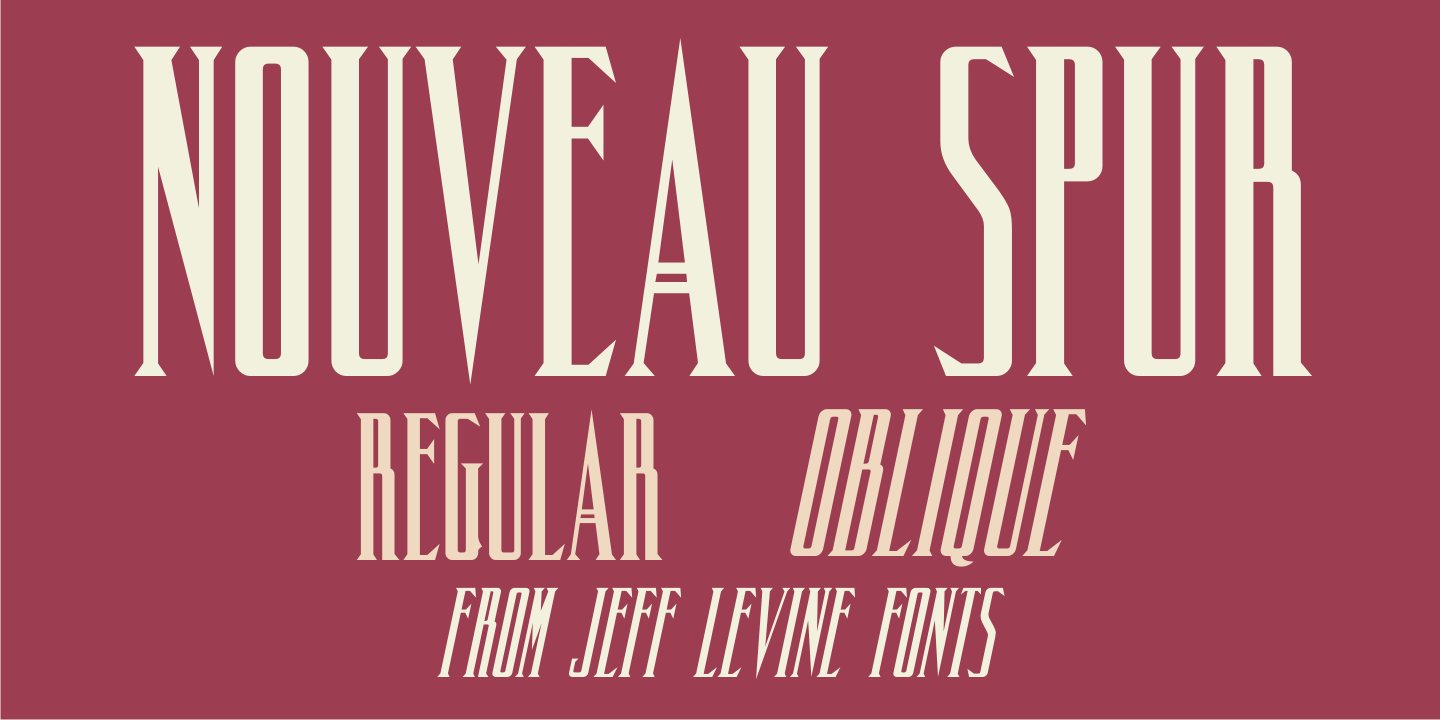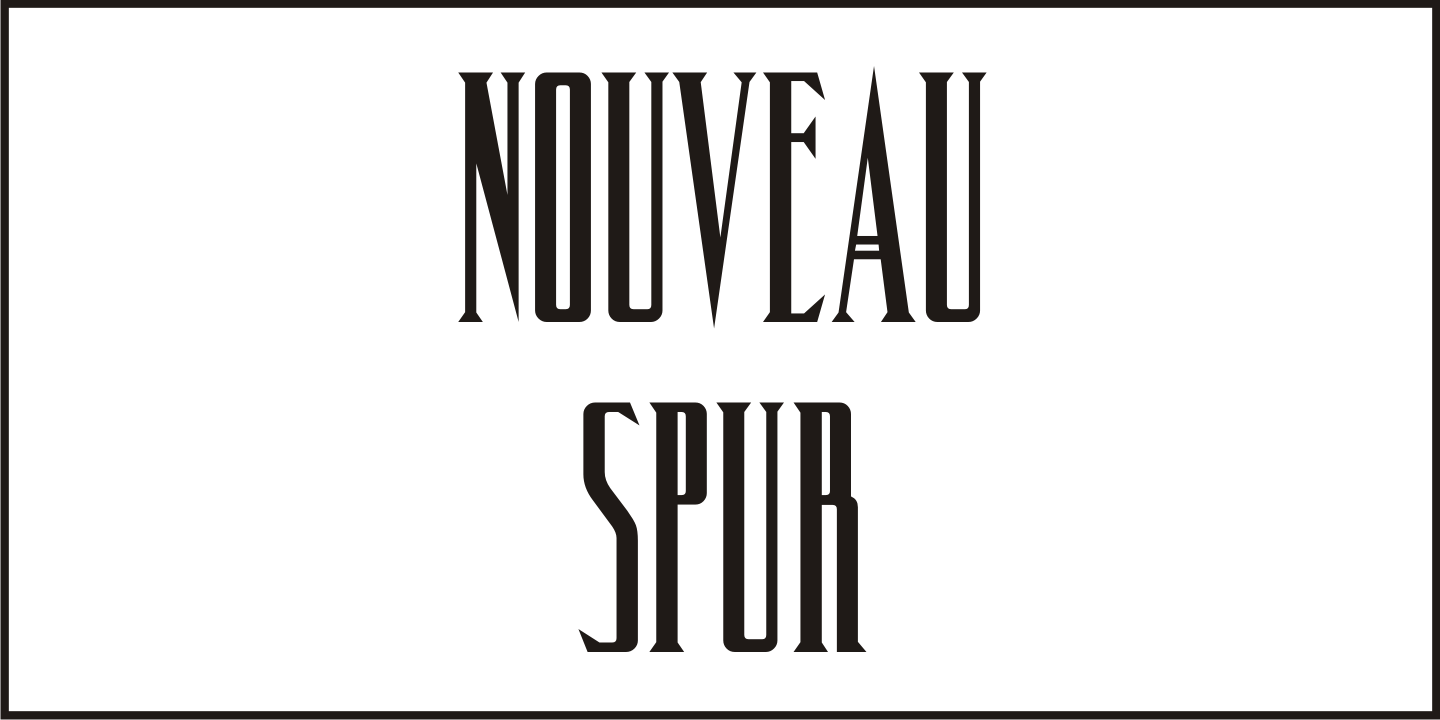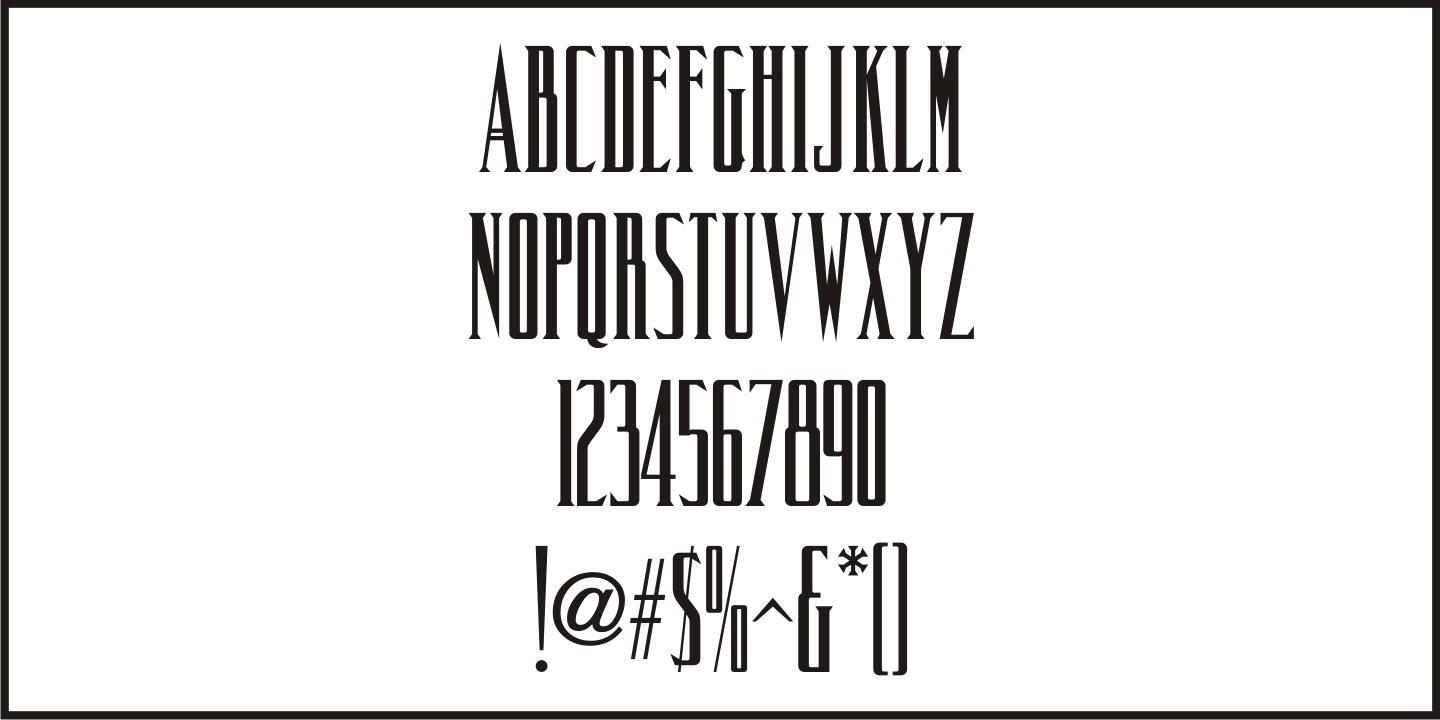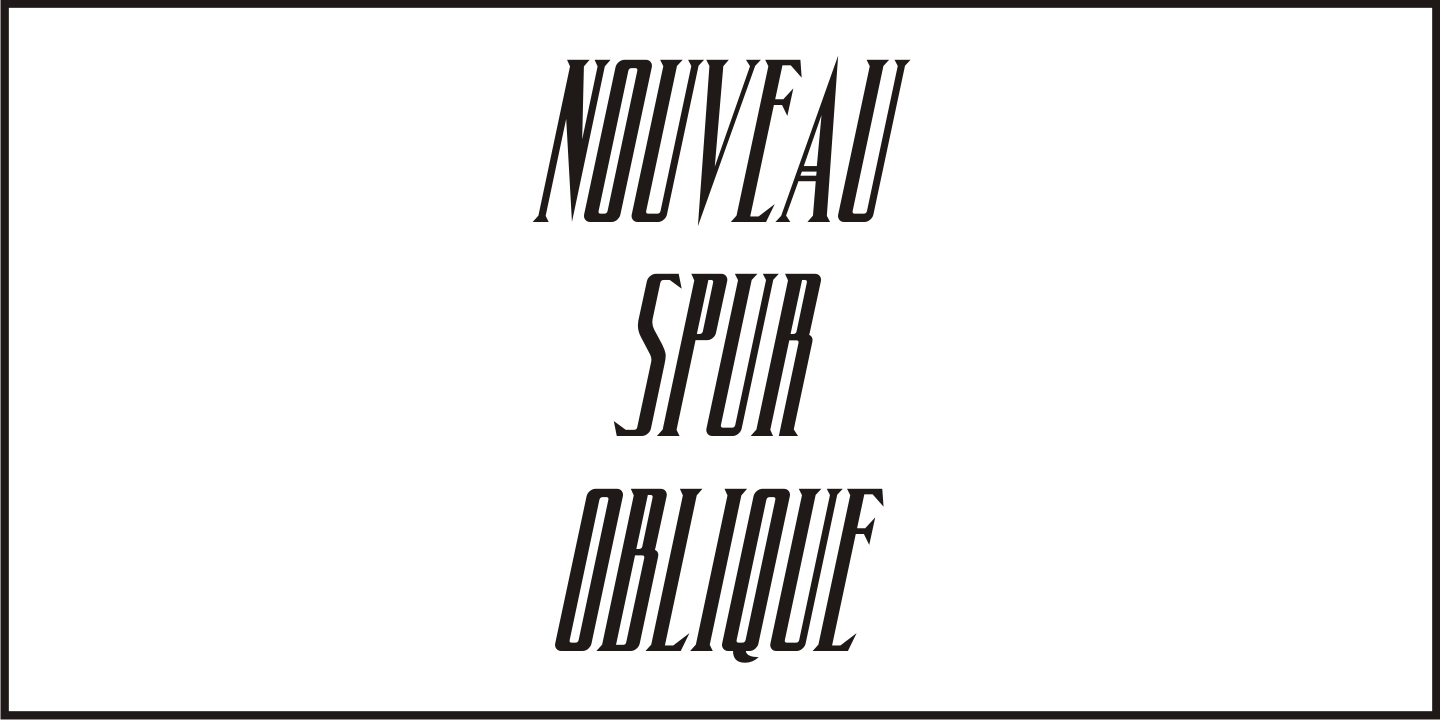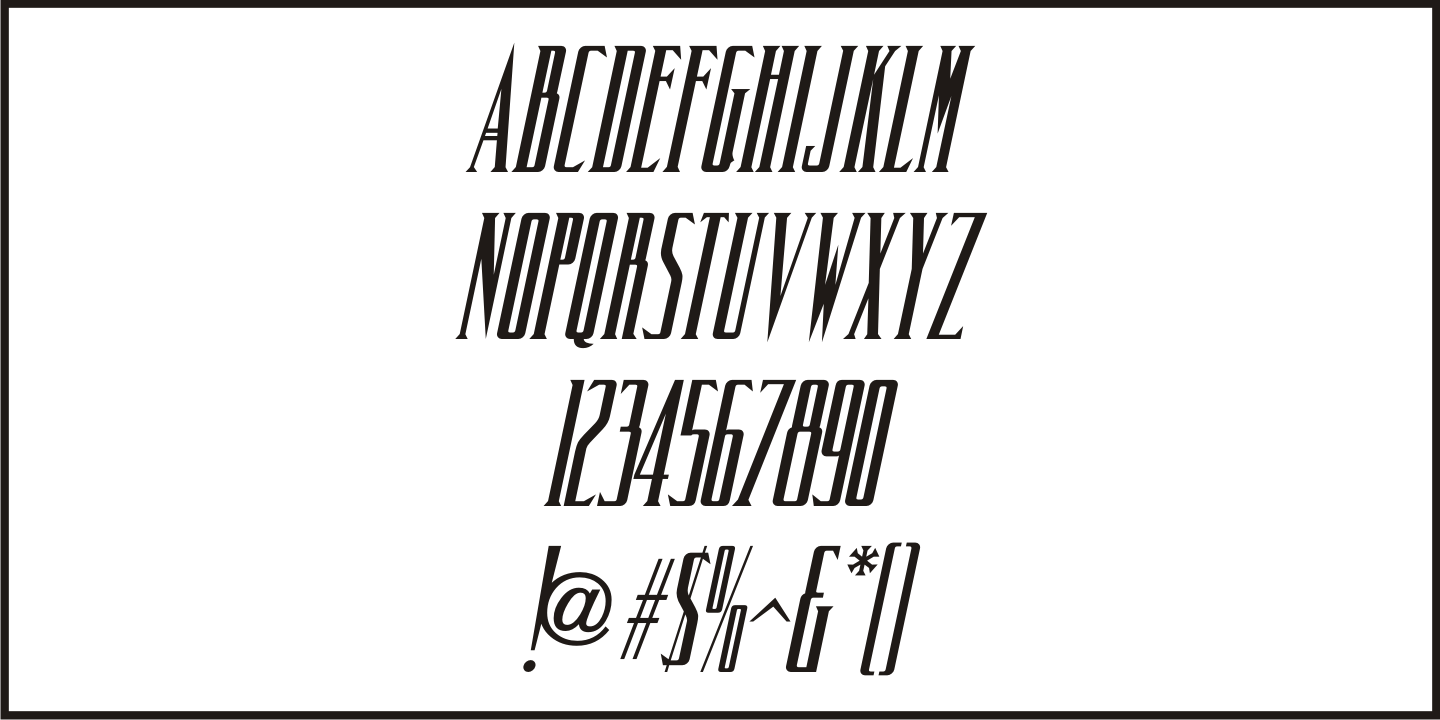
Nouveau Spur
The condensed, spur serif hand lettering for the title on the 1906 sheet music cover of 'Gee! But this is A Lonesome Town” inspired Nouveau Spur JNL; which is available in both regular and oblique versions.
Nouveau Spur by Jeff Levine Fonts